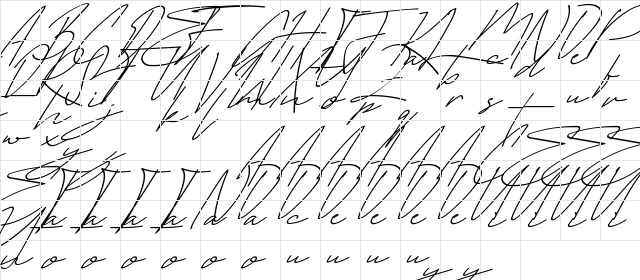
Specials Demo Regular Font Preview
Specials Demo Regular
Specials Demo Regular Font Details
| Foundry | NihStudio |
| Designer | Fajar Saepul Rohman & Suci Anita |
Design Context for Specials Demo Typeface
Specials Demo is a composed and adaptable typeface that performs quietly and consistently across a wide range of design contexts.